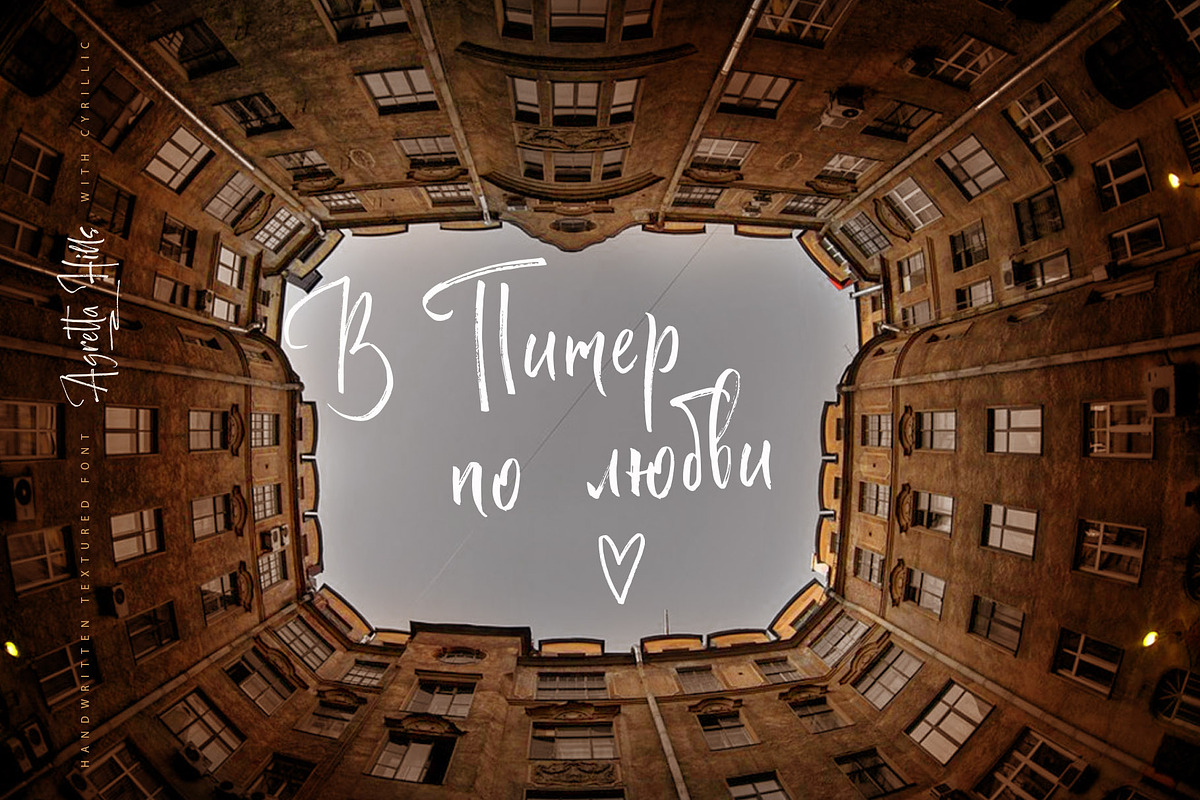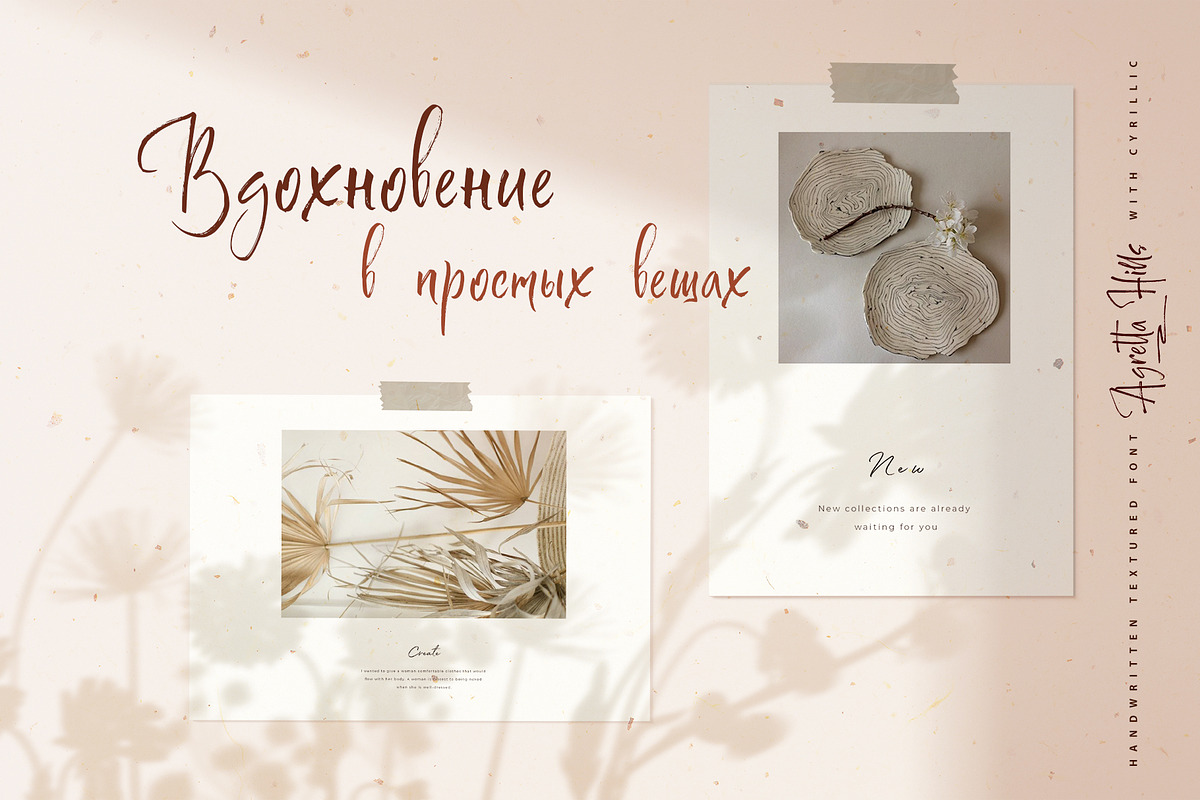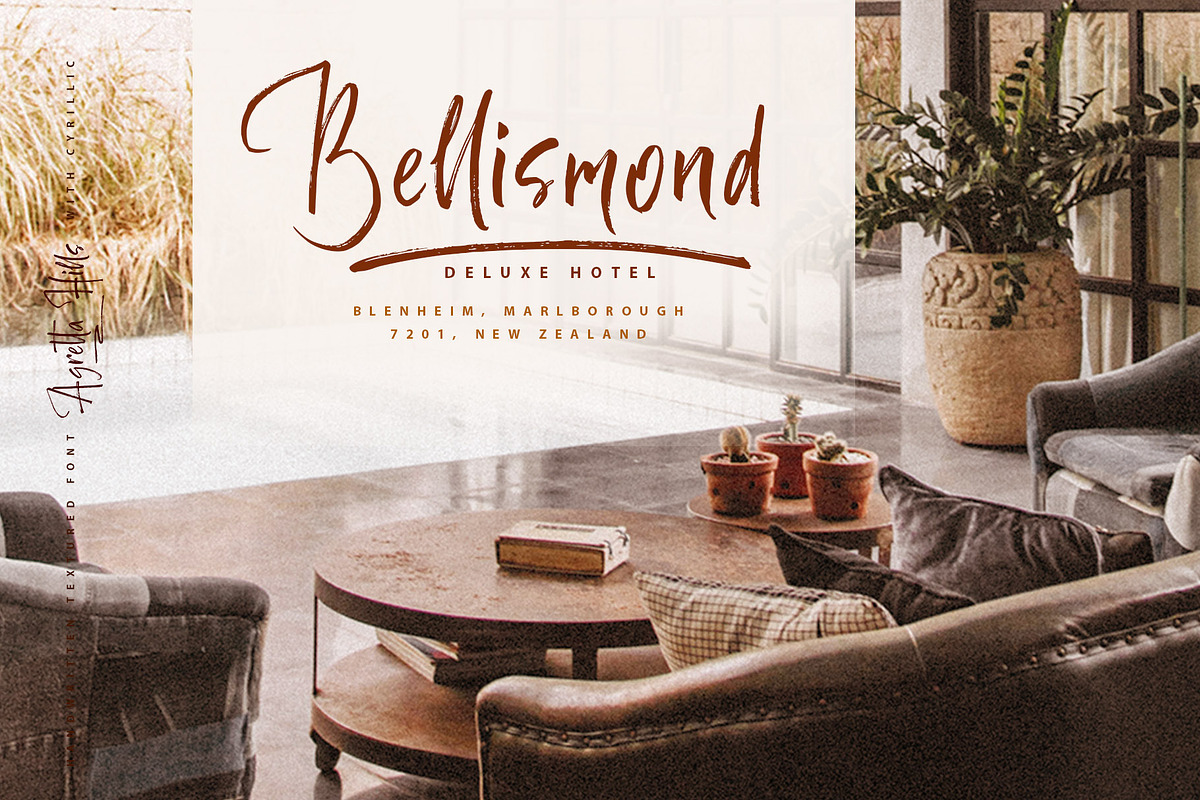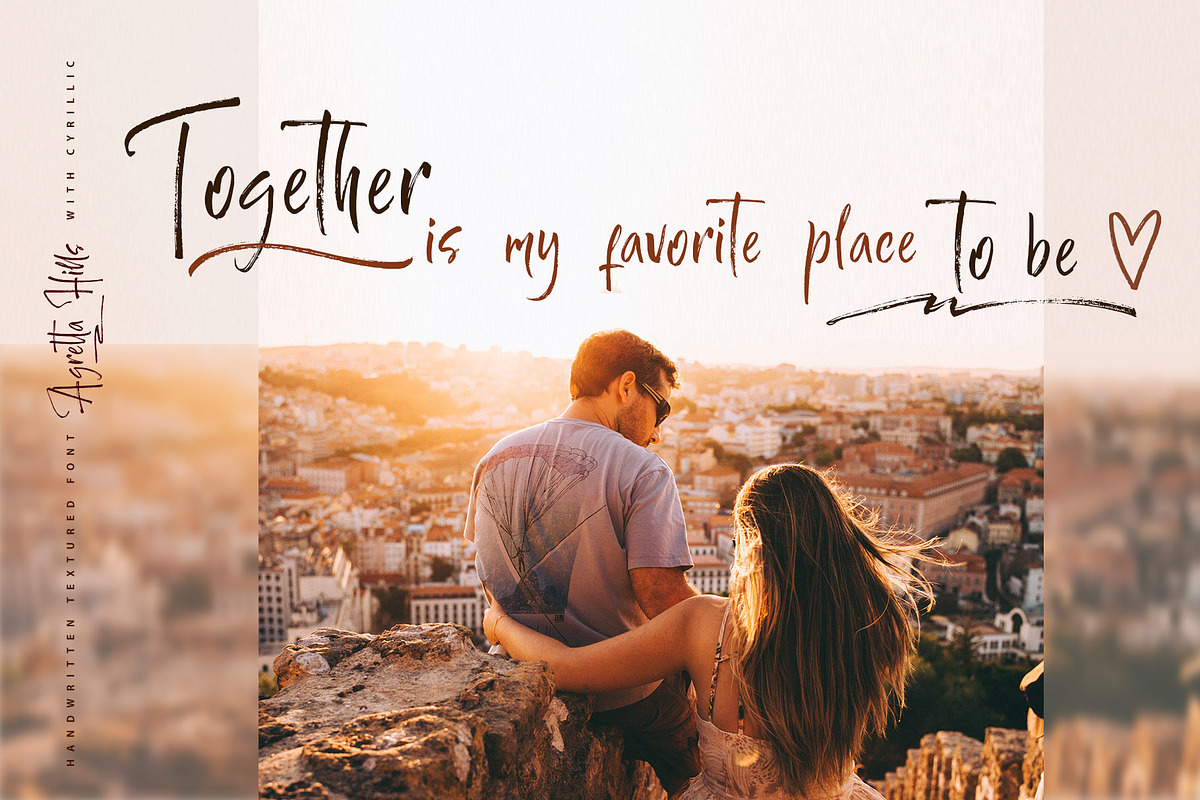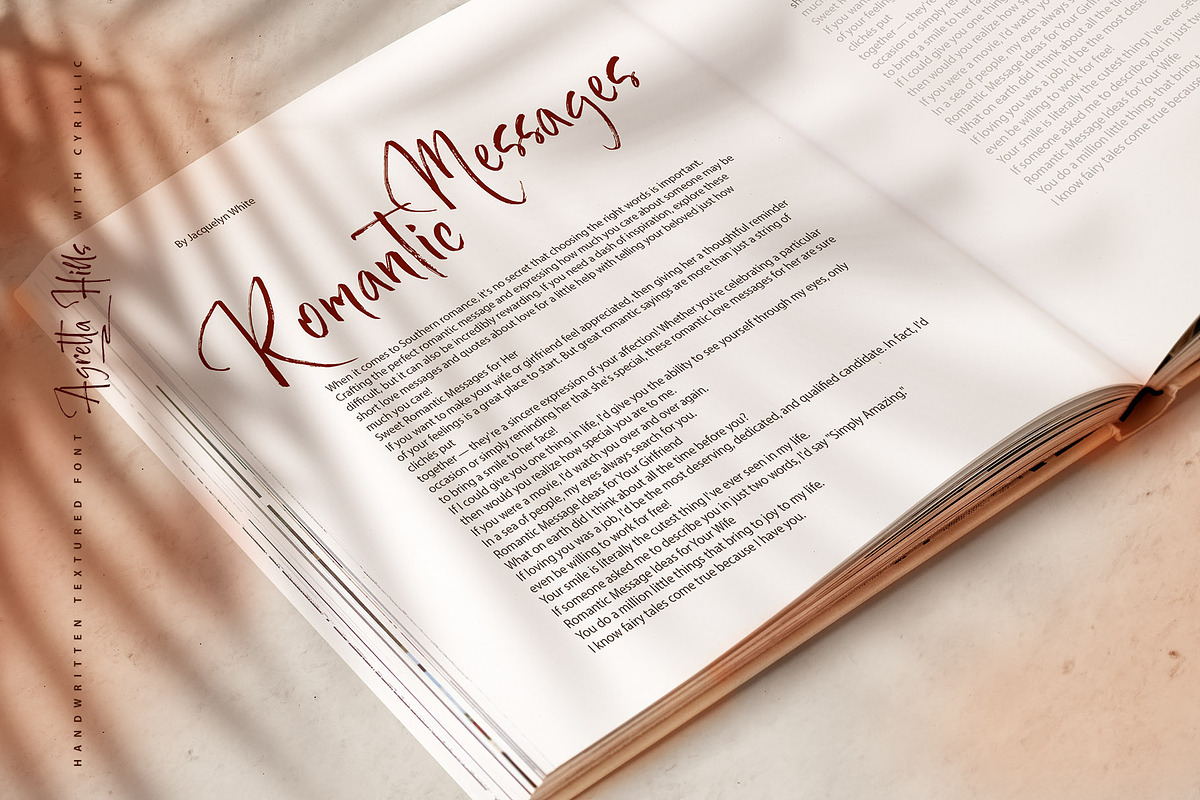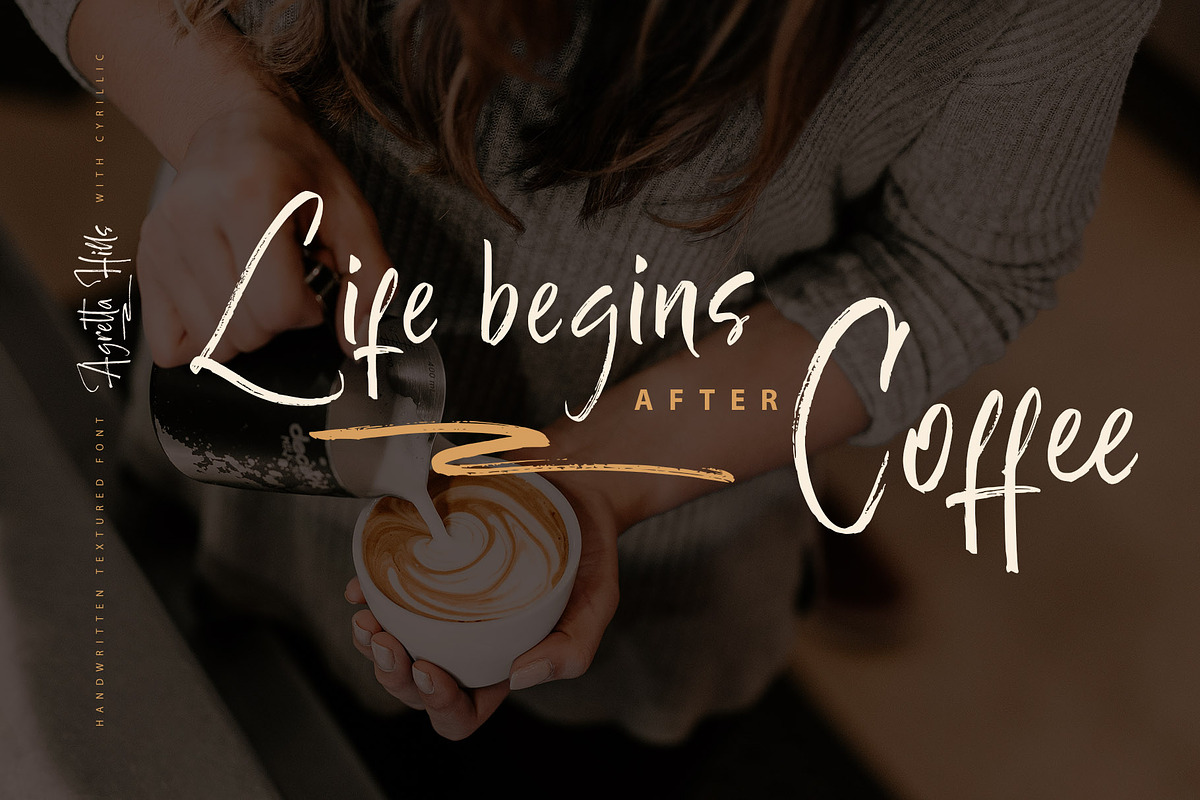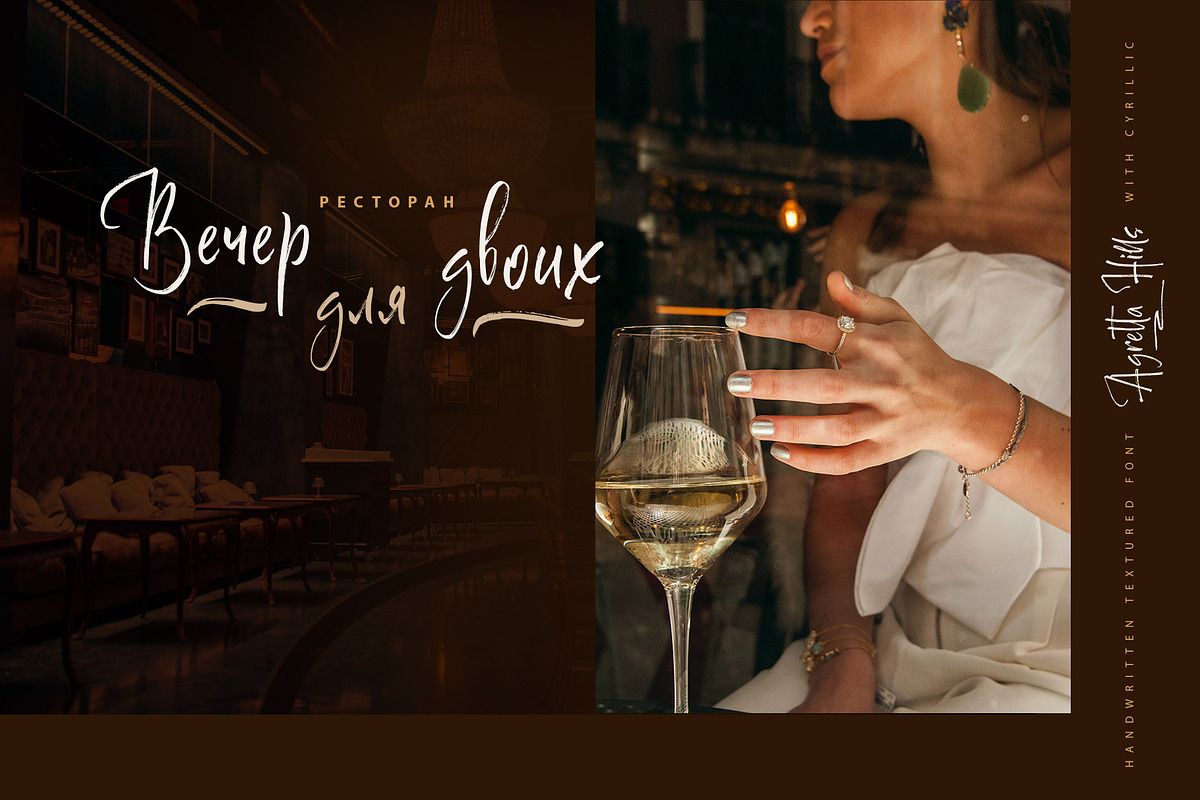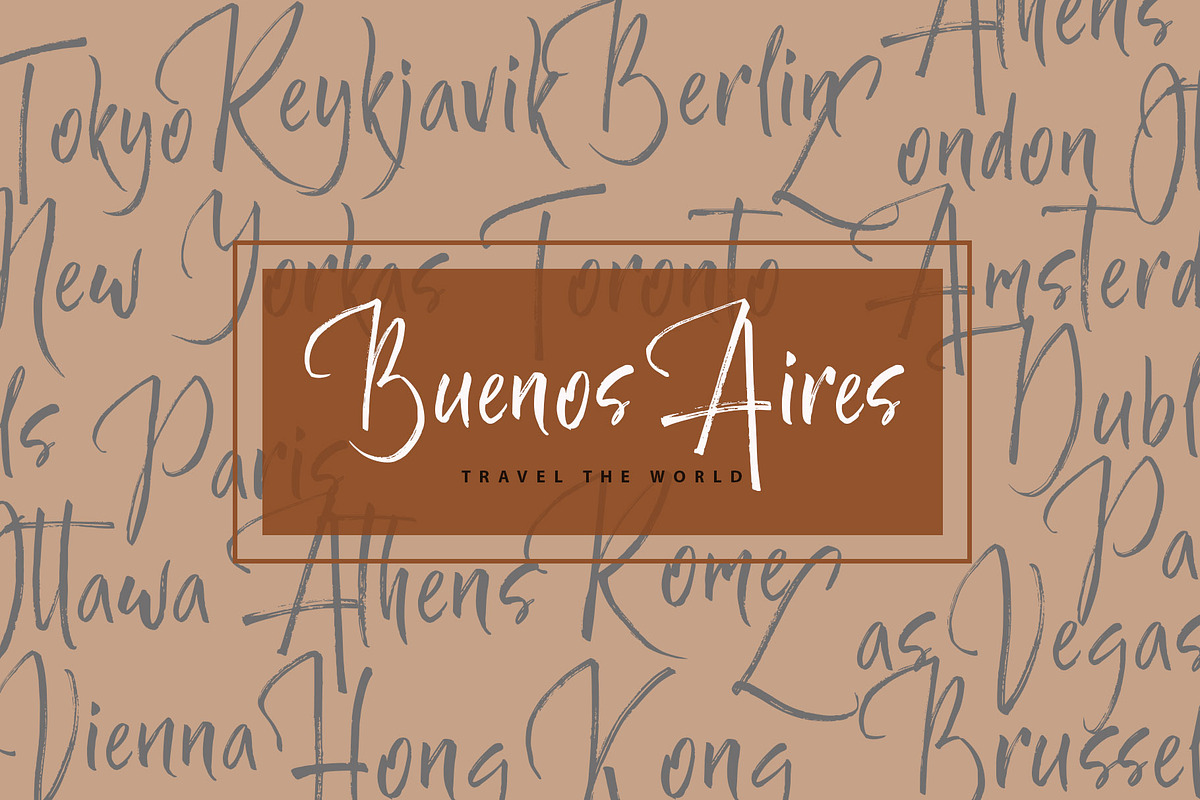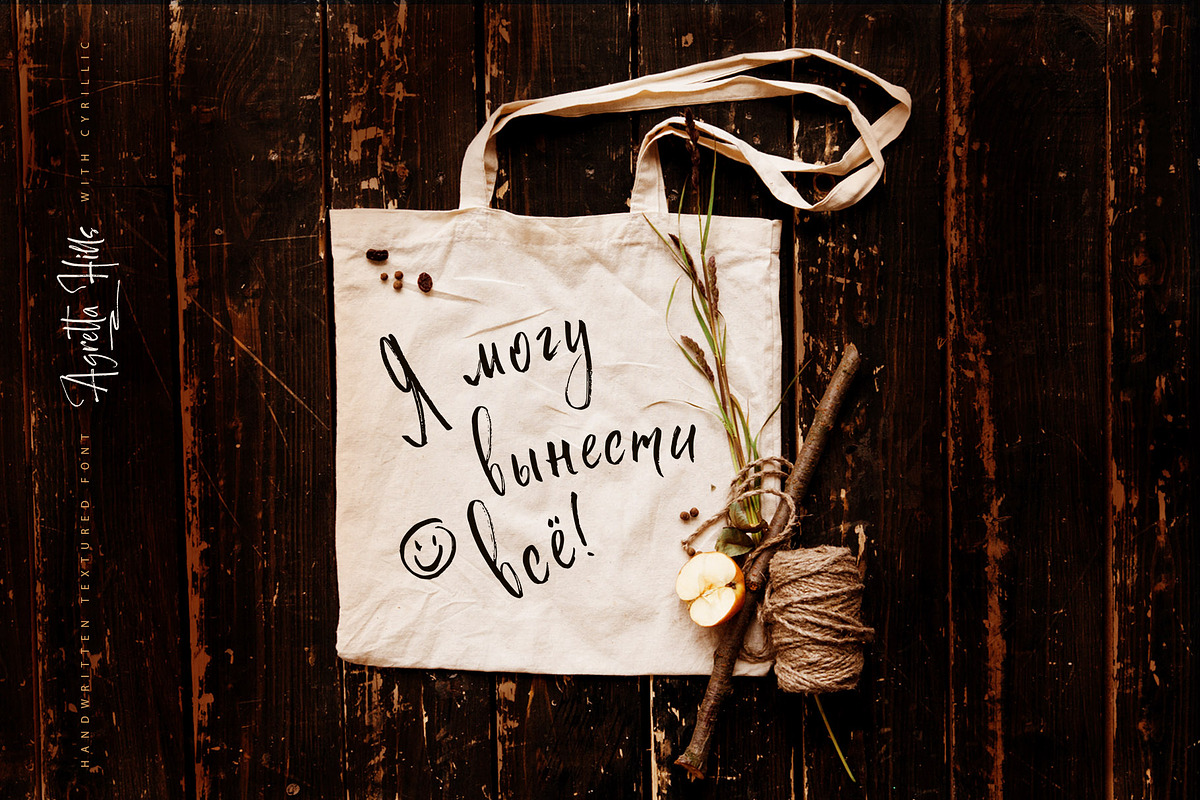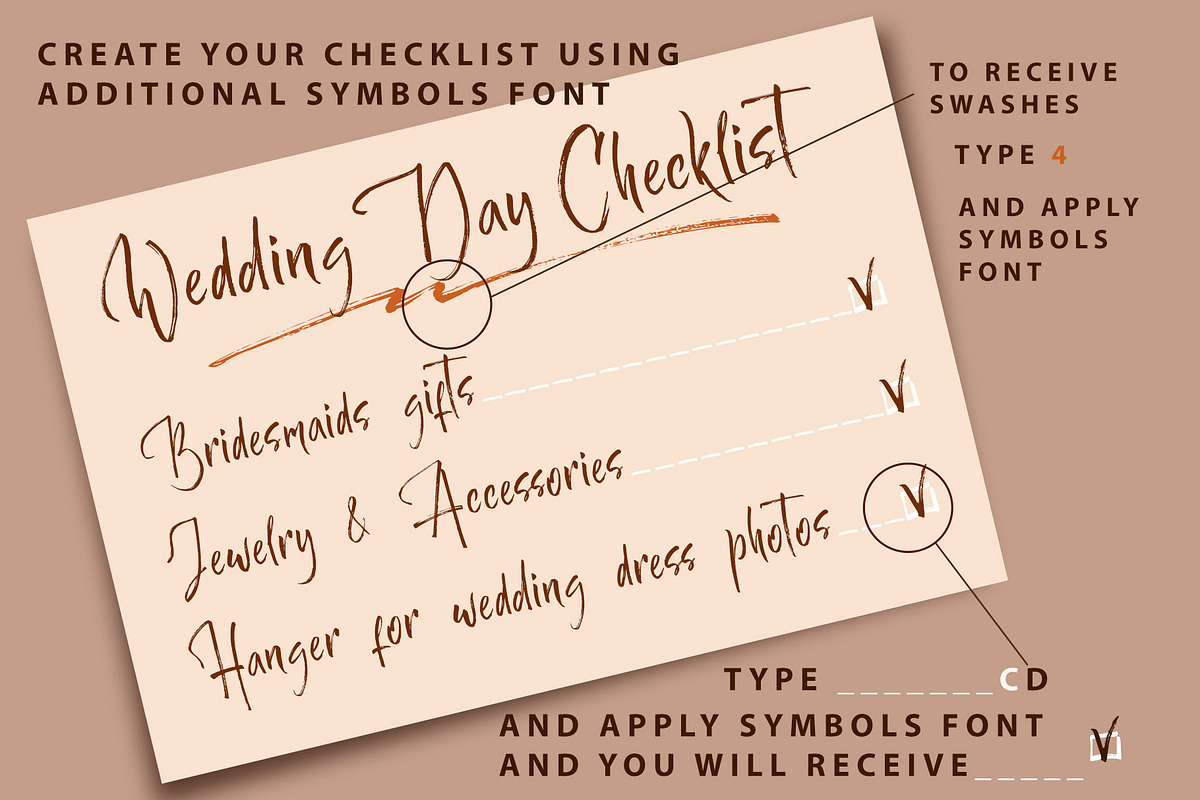
Agretta Hills Cyrillic Textured Font
The script font Agretta Hills was handwritten with a dry brush and will look great on branding design, posters, apparel, logotype, website header, fashion design, wedding card design, and more.
Agretta Hills script font contains a full set of uppercase and lowercase letters and 16 ligatures - which can be used to create a handwritten calligraphy look.
The Cyrillic part of the font contains the uppercase letters and lowercase letters and 16 ligatures, giving a realistic hand-lettered style.
Agretta Hill Symbols is a font with over 36 unique, hand-drawn elements and swashes that can help to make your design more original. A different symbol is assigned to every uppercase or lowercase standard character plus numbers 0-9 so you do not need graphics software just simply type the letter you need.
Multilingual Support for 32 languages: Latin glyphs for Afrikaans, Albanian, Basque, Bosnian, Catalan, Danish, Dutch, English, Estonian,
Faroese, Filipino, Finnish, French, Galician, Indonesian, Irish, Italian, Malay, Norwegian Bokmål, Portuguese, Slovenian, Spanish,
Swahili, Swedish, Turkish, Welsh, Zulu.
And Cyrillic glyphs support for Russian, Belorussian, Bulgarian, Ukrainian, and Kazakh languages.